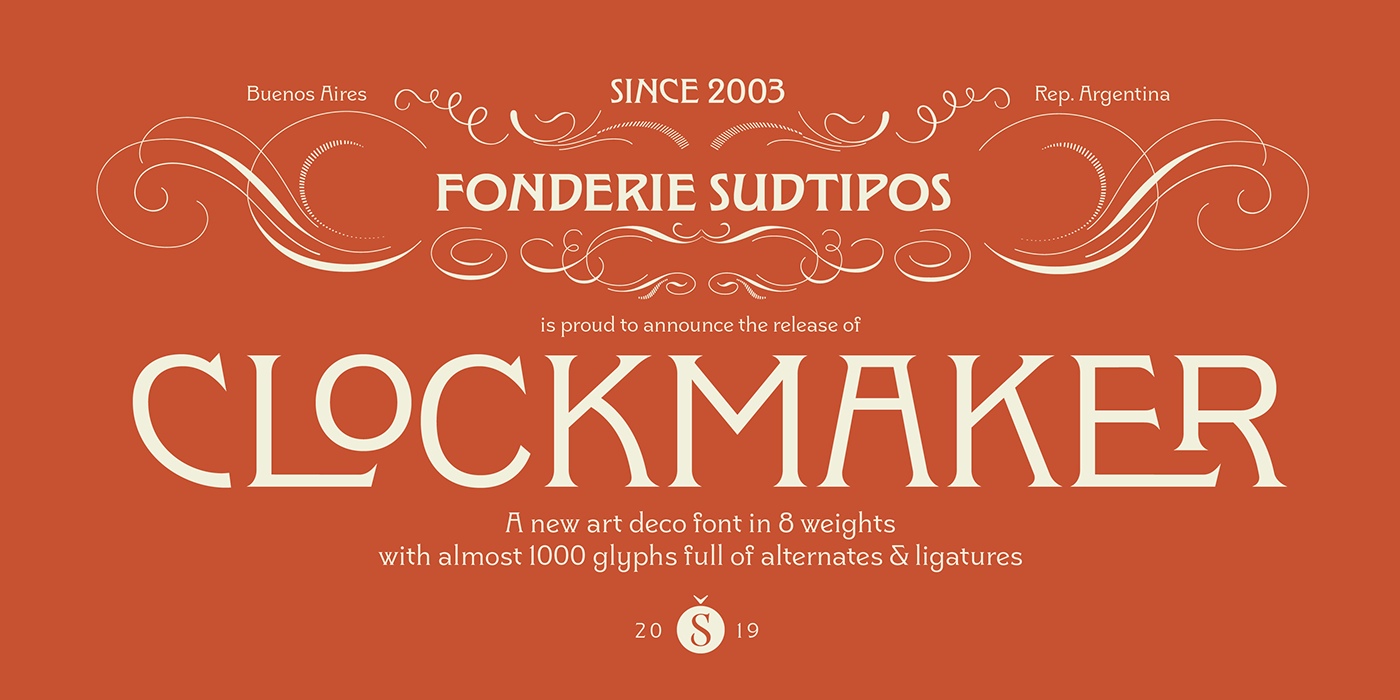
Clockmaker Font
Clockmaker Font is perfect for vintage watch branding, antique clock restoration services, timepiece collector magazines, historical museum displays, steampunk-themed designs, precision instrument marketing, horological society publications, and luxury watchmaker advertising where craftsmanship and precision are paramount.
What makes Clockmaker Font so exciting is its meticulous attention to detail that mirrors the precision and artistry of traditional clockmaking while capturing the timeless elegance of mechanical timepieces. The carefully engineered letterforms reflect the same dedication to perfection that master clockmakers bring to their craft.
The Clockmaker Font family includes regular, bold, and ornate variants, with decorative numerals and clock-inspired ornaments that provide designers with comprehensive tools for creating authentic horological branding and time-themed design projects.
This distinguished typeface embodies the essence of horological craftsmanship, combining traditional clockmaking aesthetics with contemporary typographic functionality. The Clockmaker Font Free Download gives timepiece brands access to typography that communicates heritage expertise and mechanical precision.
The font's intricate character details and mechanical-inspired elements create immediate associations with clockwork mechanisms and traditional timepiece construction. Each letterform has been designed to reflect the precision engineering and artistic beauty found in fine mechanical clocks and watches.
Clockmaker Font excels in creating memorable brand experiences that celebrate the art and science of timekeeping. The typeface's sophisticated character makes it ideal for luxury watch brands, antique dealers, and businesses emphasizing precision and traditional craftsmanship.
From Swiss watchmakers to vintage clock collectors, this font brings horological authenticity that resonates with audiences who appreciate mechanical artistry and precision engineering. The elegant design maintains its craftsmanship character across both traditional and modern applications.